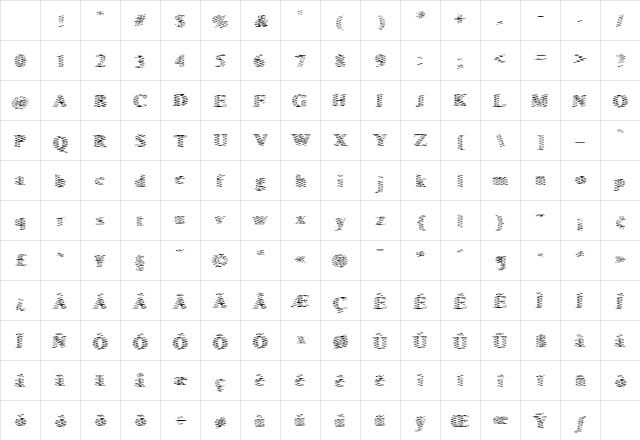
Complete Singer SerifHard glyph index. Displaying only characters natively supported by Singer SerifHard font.
Singer carries the refined structure of traditional serif typography, with bracketed terminals and considered proportions that communicate credibility and craft.